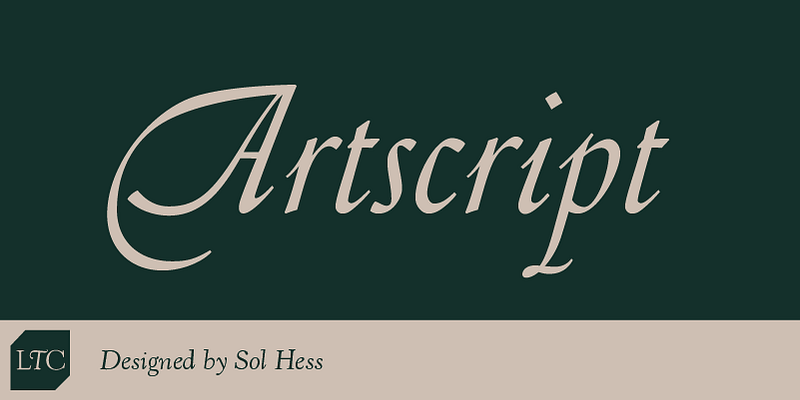
LTC Artscript Pro Font Free Download is an elegant, flowing script typeface with a distinct calligraphic style. Designed to evoke sophistication and artistic flair, this font is ideal for high-end invitations, branding, wedding stationery, logos, and any project that requires an elegant handwritten touch.
LTC Artscript Pro Font Free Download combines graceful, flowing strokes with well-defined letterforms, offering a classic script style that feels both refined and natural. It works beautifully for both large display text and smaller, detailed work, maintaining legibility while adding an artistic flair to your design.
Whether you're working on a luxury brand, custom invitations, or creative projects with an elegant aesthetic, LTC Artscript Pro will elevate your typography with a personal and stylish touch.